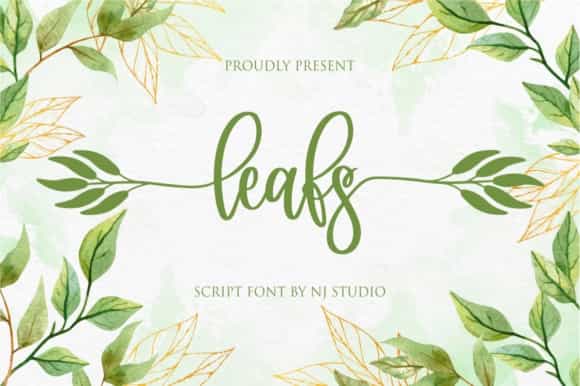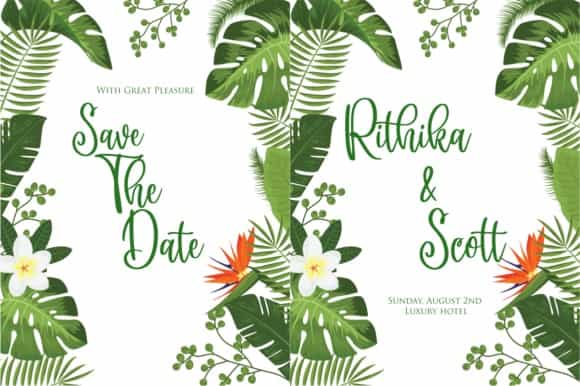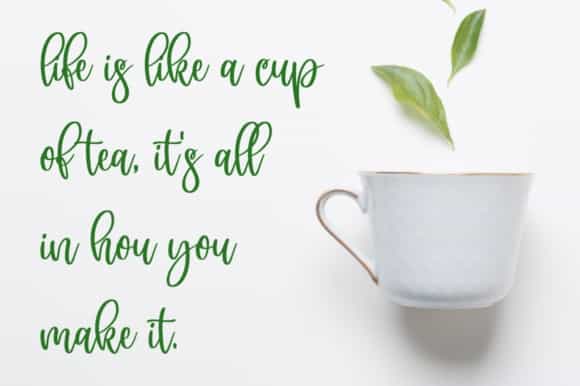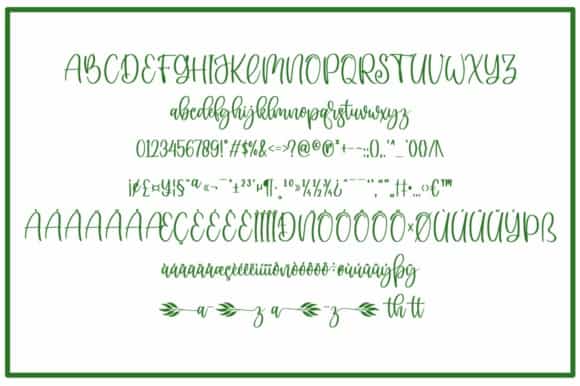
The Leafs Font constructed with open type features, an additional swash at the beginning and the end, as well as alternative letters and ligatures, so it appears natural and authentic as if handwritten. This font will look gorgeous on any project that requires some handwriting that is natural.